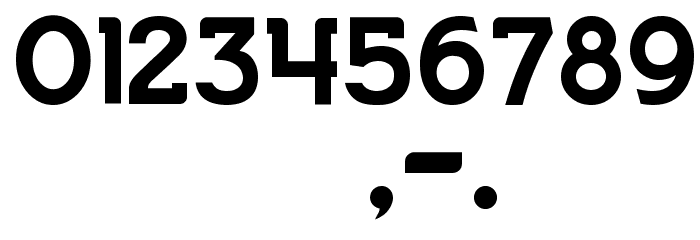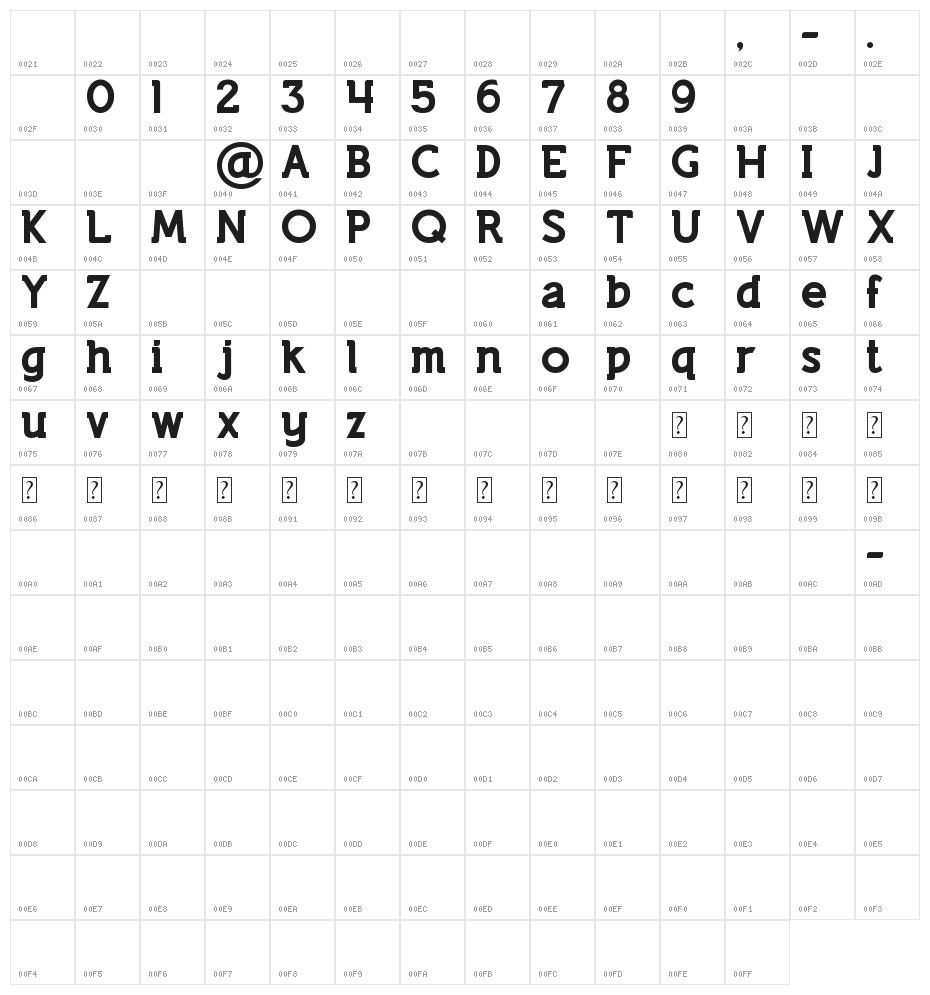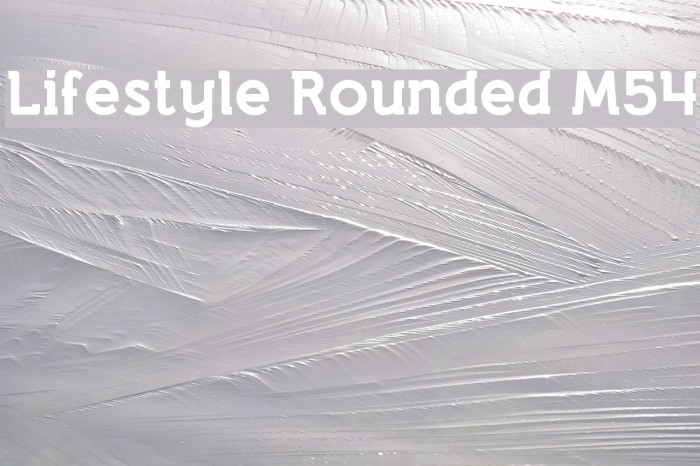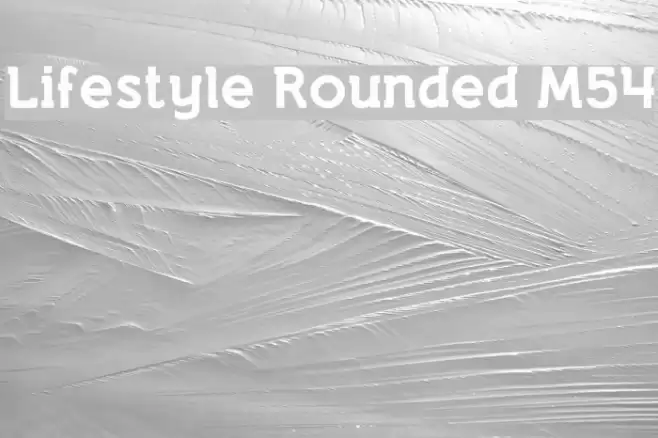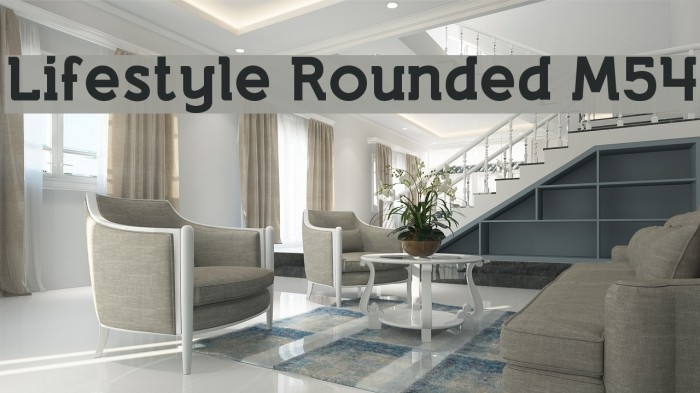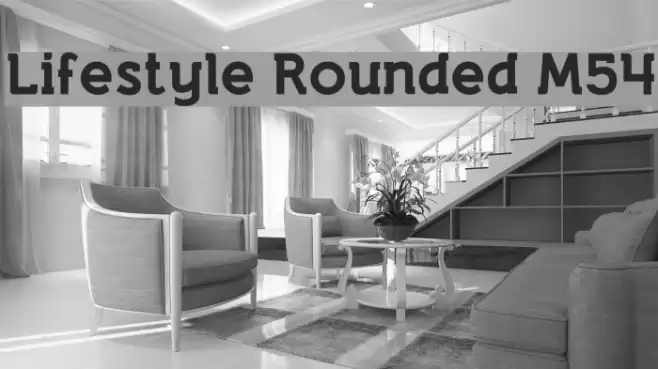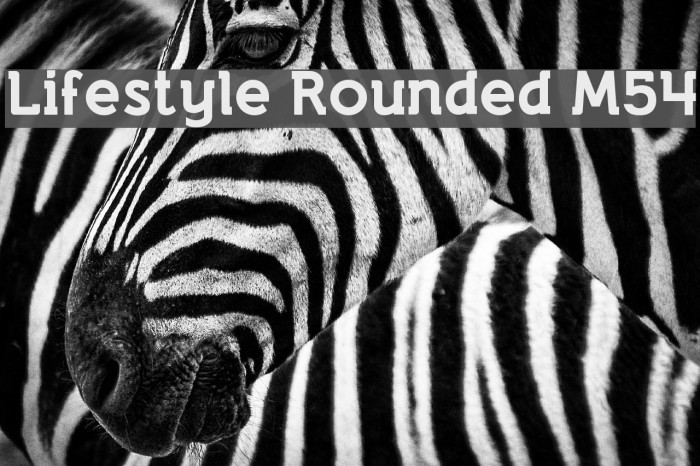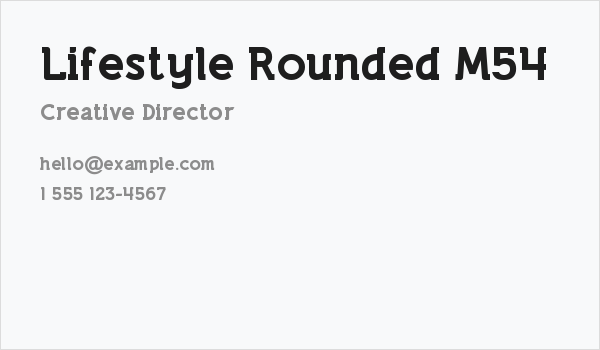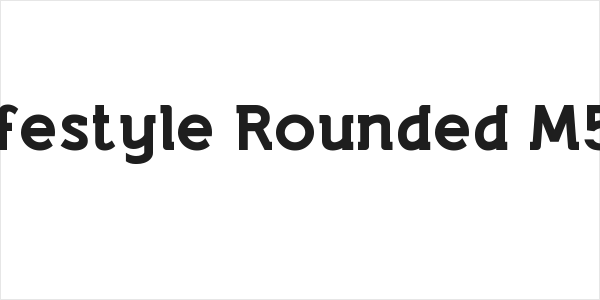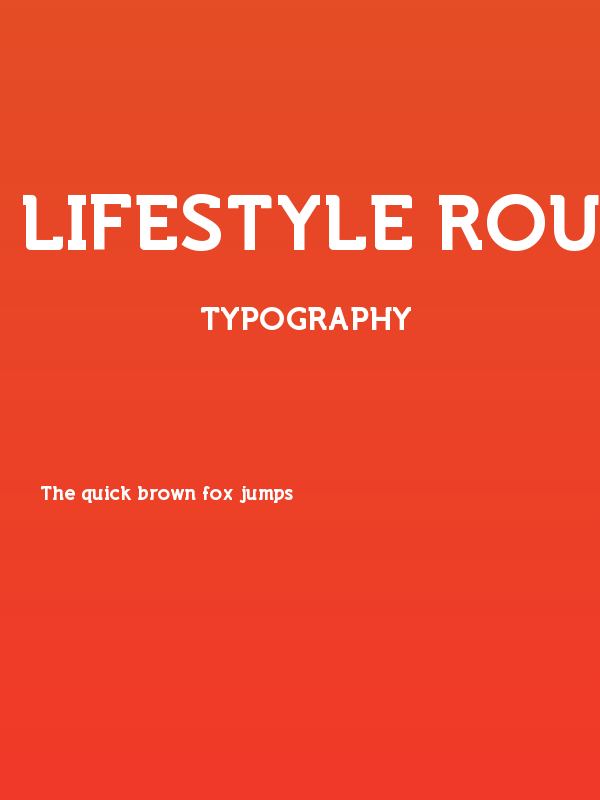
Lifestyle Rounded M54 Font
Lifestyle Rounded M54 Description
This font features a rounded, bold style that combines a modern aesthetic with a friendly and approachable feel. The characters are well-balanced with consistent stroke widths, giving it a clean and polished appearance. The rounded edges soften the overall look, making it suitable for a variety of applications where a welcoming tone is desired. The uppercase and lowercase letters maintain a uniform height, contributing to its readability. Numerals and special characters are designed with the same rounded characteristics, ensuring a cohesive look across all text elements.
| Proposed Projects | Ideal for branding, packaging, children's books, and digital content where a friendly and modern appearance is needed. |